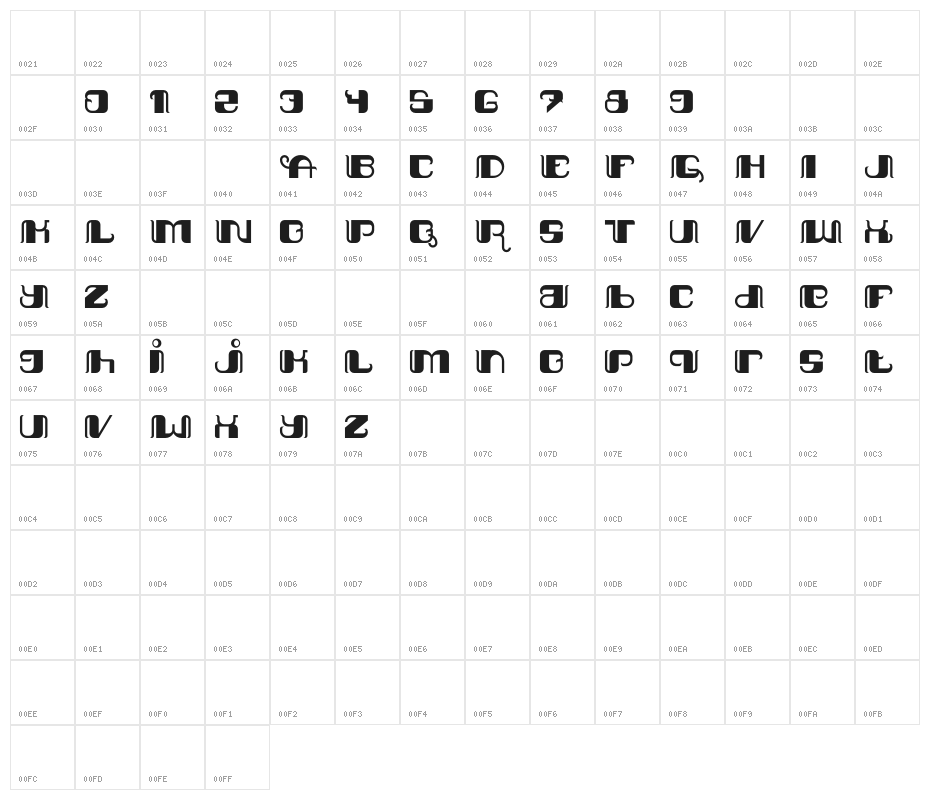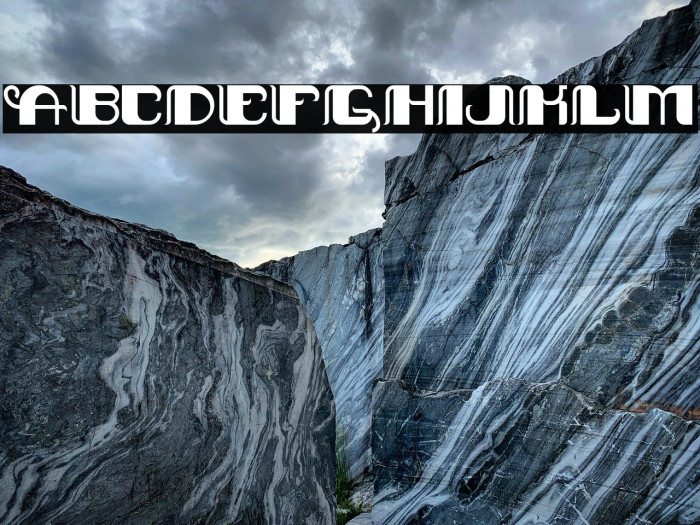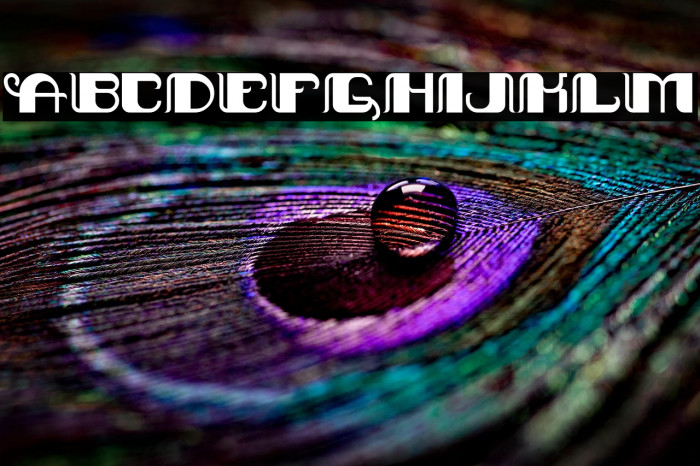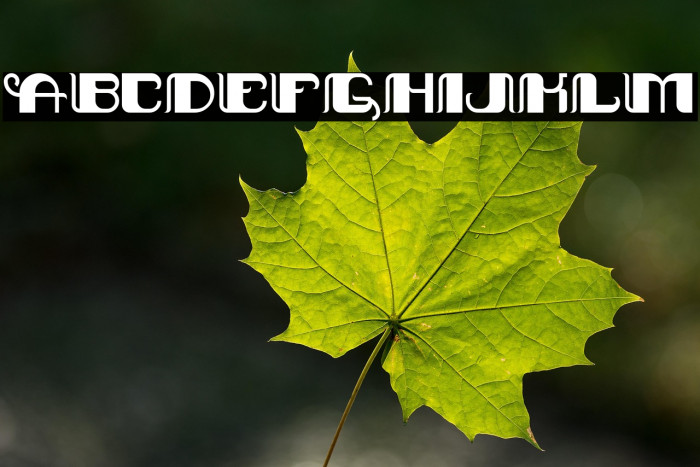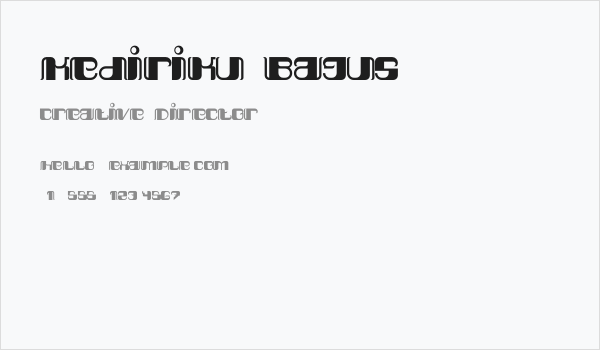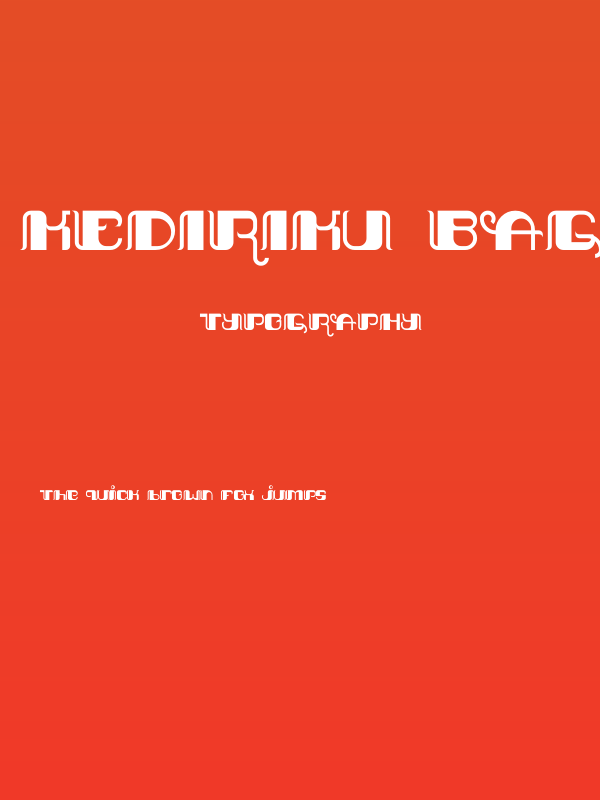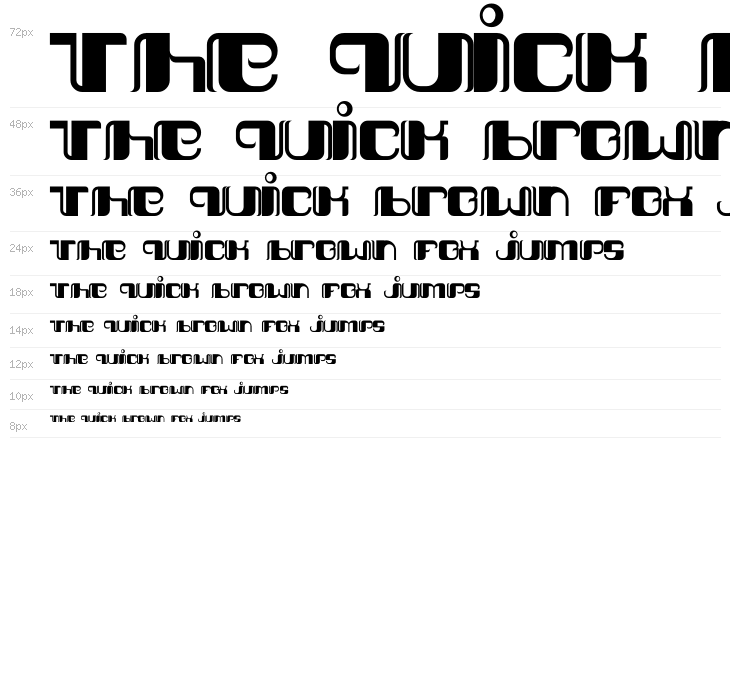
Kediriku Bagus Font
Kediriku Bagus Description
This font features a bold and futuristic design with a unique blend of geometric shapes and smooth curves. The uppercase and lowercase letters share a consistent style, characterized by thick strokes and rounded edges. The numerals and special characters maintain the same aesthetic, ensuring a cohesive look across all glyphs. The font's distinct style is both modern and decorative, making it stand out in any design project. Its bold presence is ideal for capturing attention, while the rounded elements add a touch of softness to its overall appearance.
| Proposed Projects | Ideal for branding, posters, album covers, and any project requiring a modern, eye-catching typeface. |